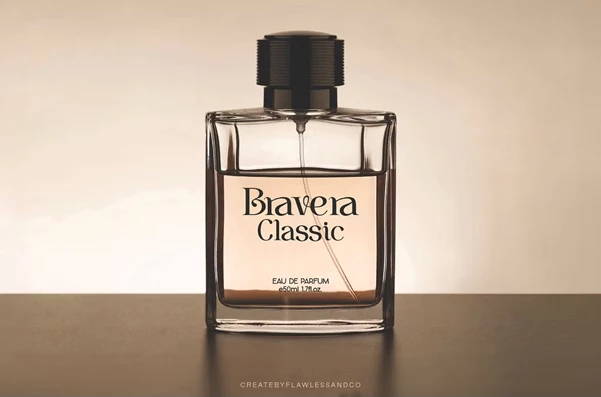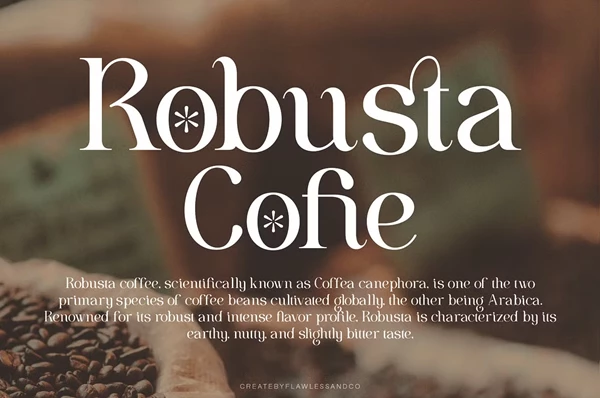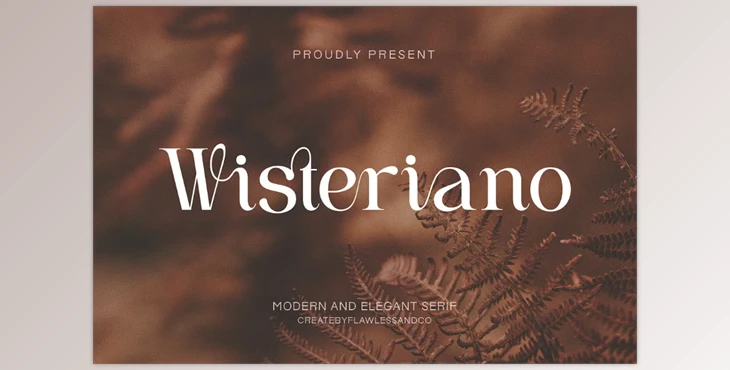
Wisteriano - Modern Serif Font:
Wisteriano is a sophisticated serif font that blends modern style with classic design. It is suitable for branding, wedding invitations, editorial layouts, luxury packaging, and high-end fashion due to its graceful curves and intricate details. Wisteriano brings beauty to polished projects, combining elegance and refinement.
- Design and expressive freedom are offered by including alternates and ligatures with greater design flexibility.